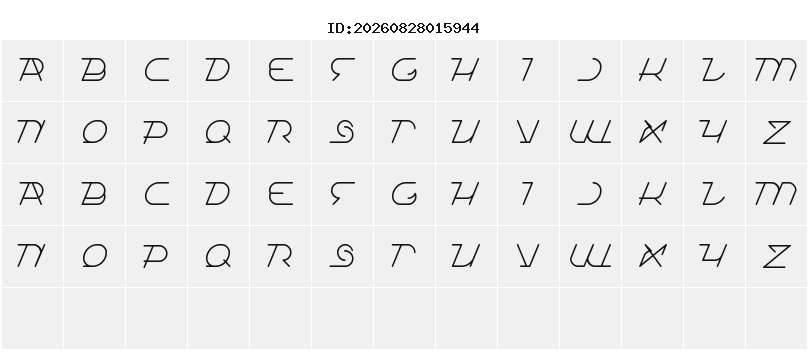
• Font Name: True Self Reliant
• Full Font Name: True Self Reliant
True Self Reliant.ttf is a modern, elegant sans-serif font designed for ultimate readability and visual harmony. Perfect for branding, headlines, web design, and print materials.